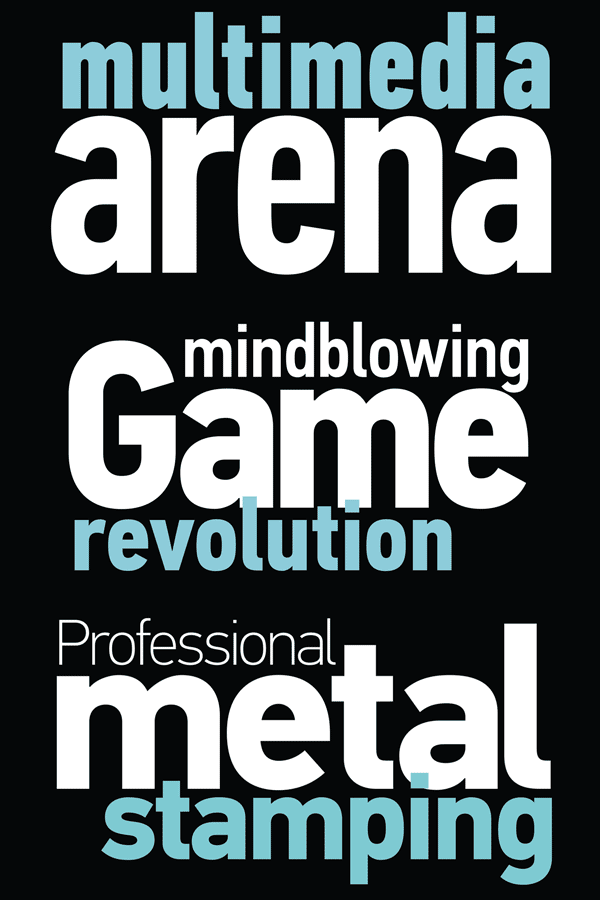
PF DIN Text from Parachute.
Font designer Panos Vassiliou of foundry Parachute has created the PF DIN Text font to create a new text font family based on the original DIN typeface that fits to the ever-increasing typographic requirements for diverse weights and support for multiple languages. Panos Vassiliou added softer and legible elements to the geometric structure of the original DIN typeface. The whole PF DIN Text font family is a sans serif type system that includes normal, condensed, and compressed styles consisting of incredible 45 weights, which ranging from Hairline to Extra Black plus matching true-italics. This amount of weights as well as it’s extended language support make it a popular sans serif font family around the world. PF DIN Text is well suited for the use in editorials, packaging and brand design, advertising campaigns, and web design projects.
PF DIN Text is part of Parachute’s complete DIN series, which consists of 8 superfamilies with a total of 96 weights.